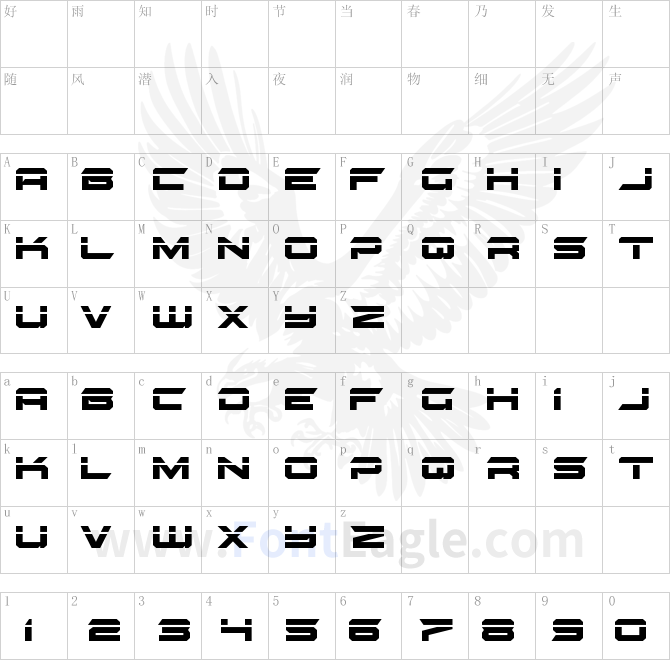
Gypsy-Killer-Laser-Regular is a great font, widely used in graphic design, single-page menu design, poster design and other fields, and is deeply loved by designers.Gypsy-Killer-Laser-Regular download.